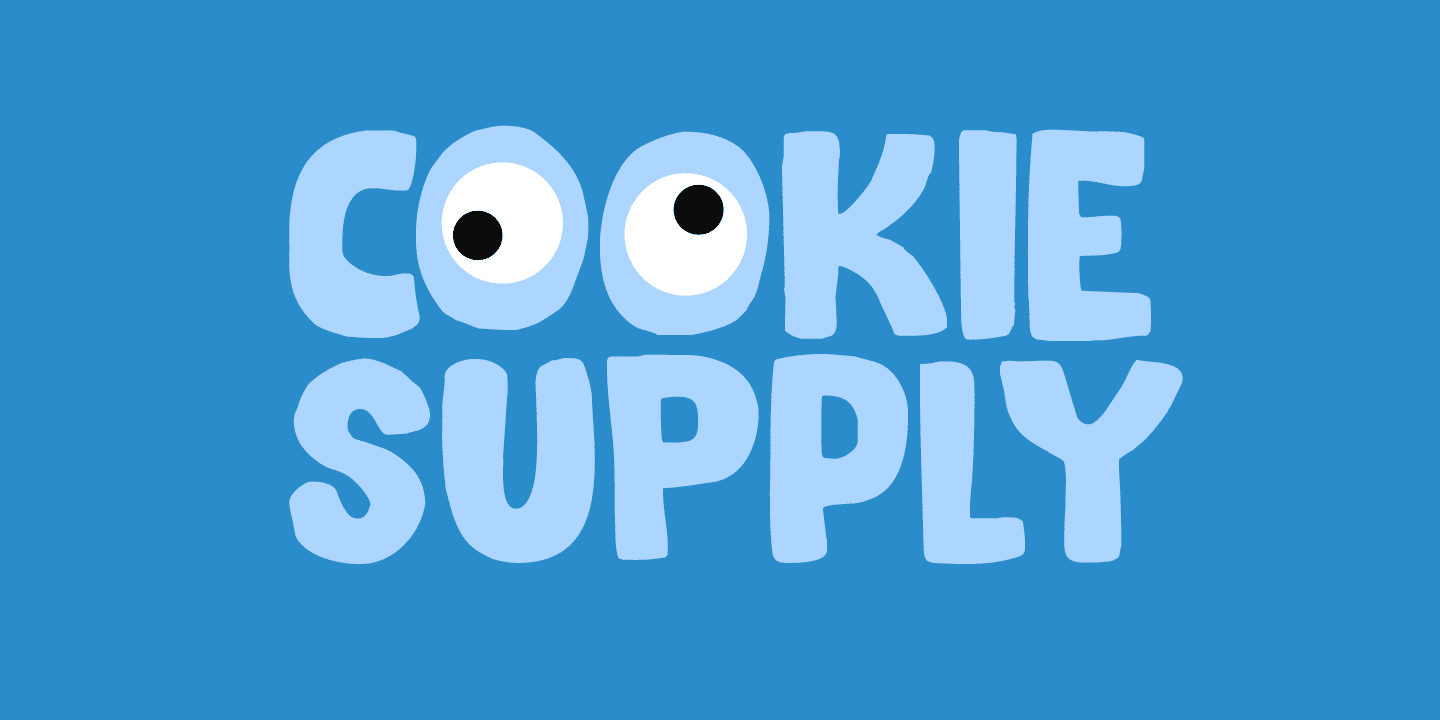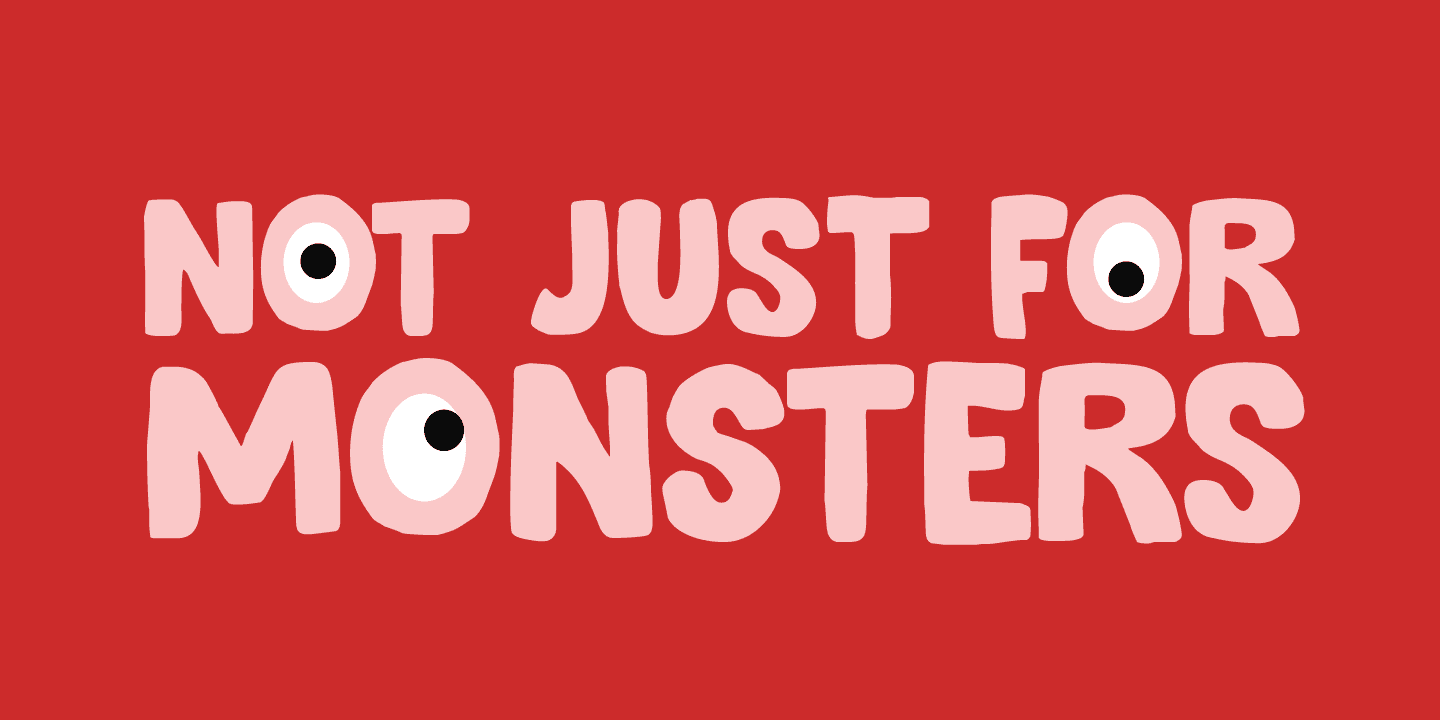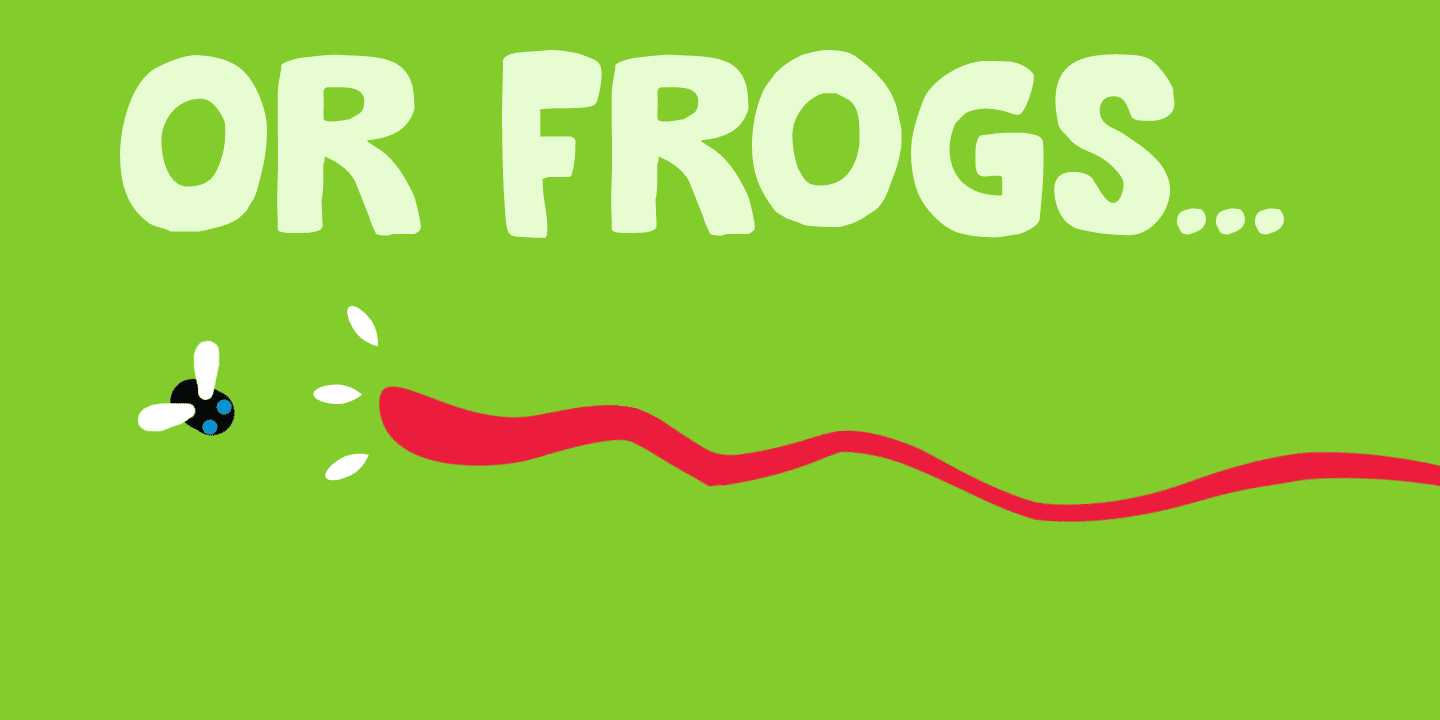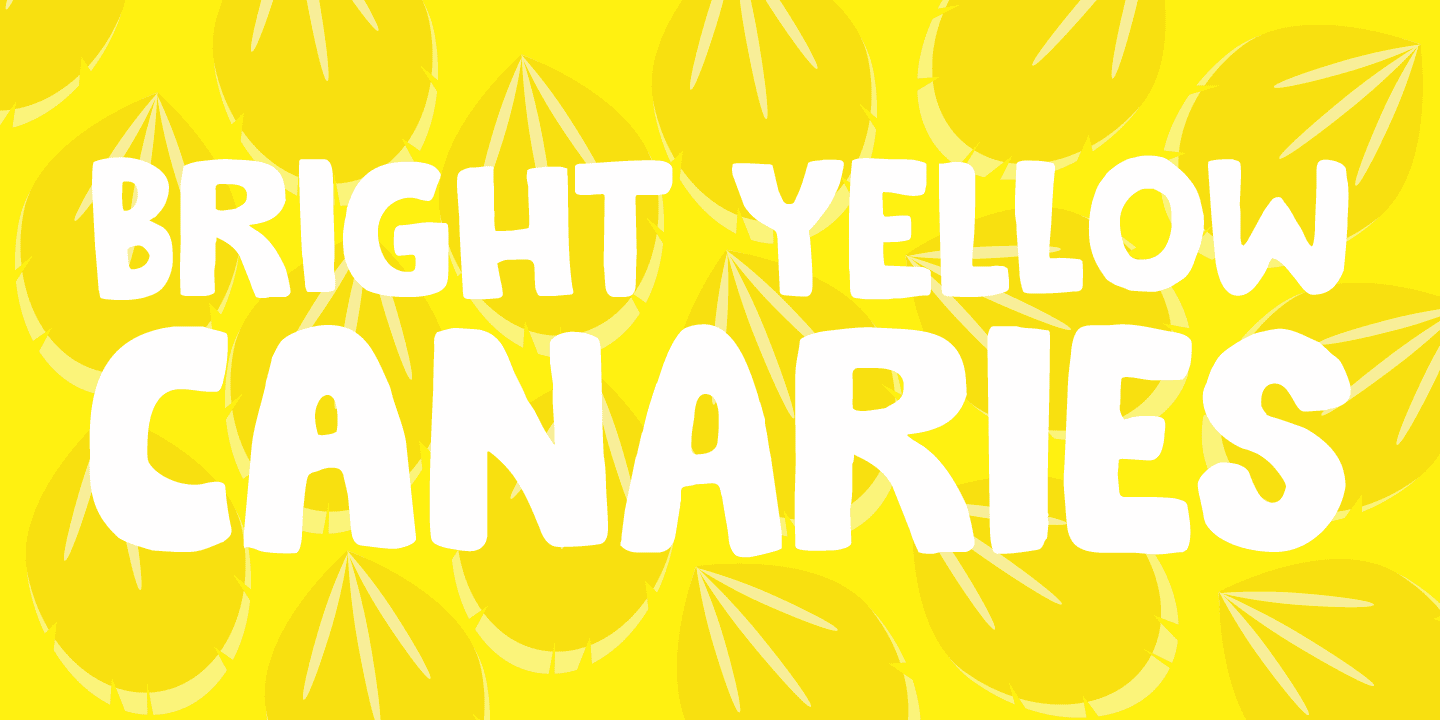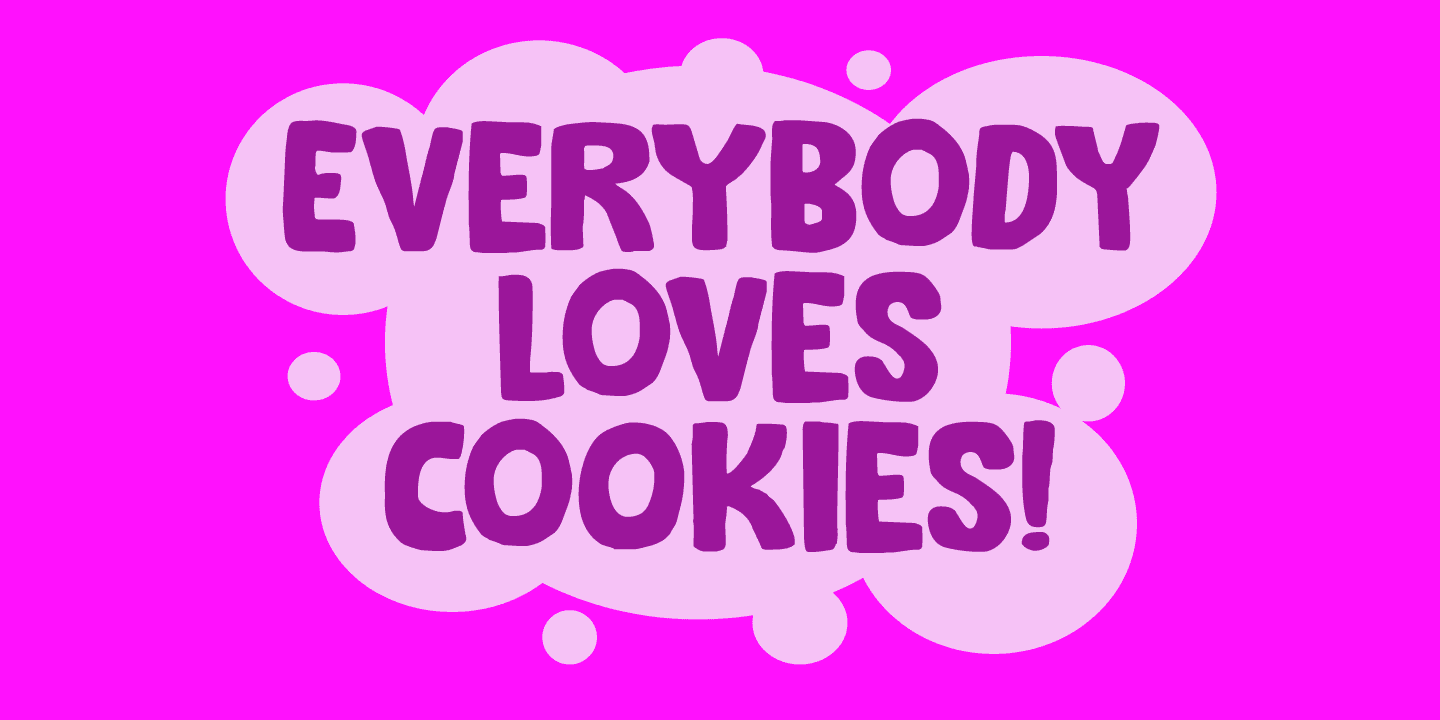
Cookie Supply Family (2 fonts)
Cookie Supply is a handmade display font. It is a bit uneven, a bit rough, yet very friendly, cute and useful. I guess it works best with products or books for children. Or oatmeal cookies by the dozen. Or organic apple juice. Or…